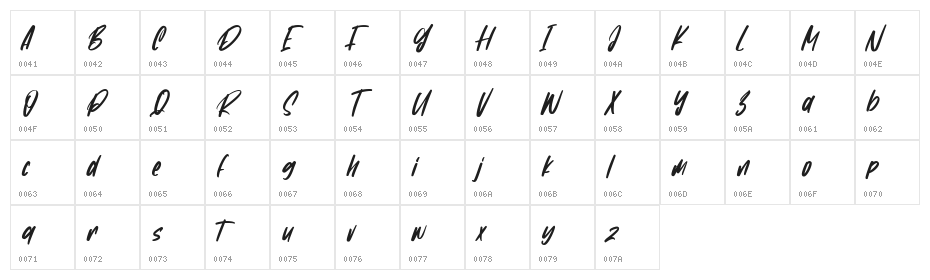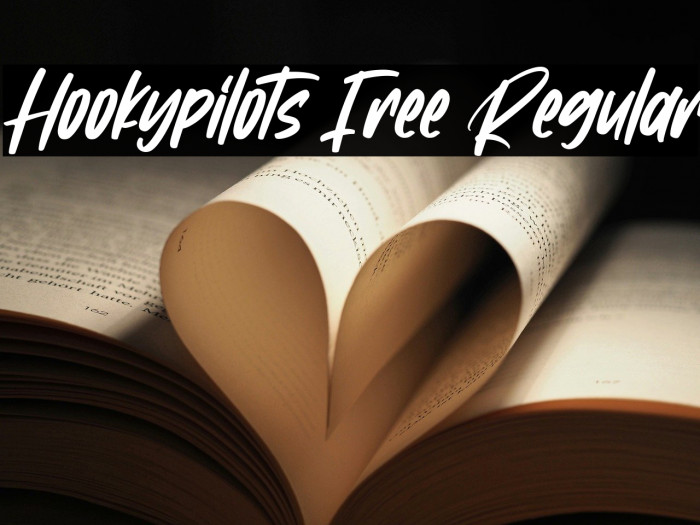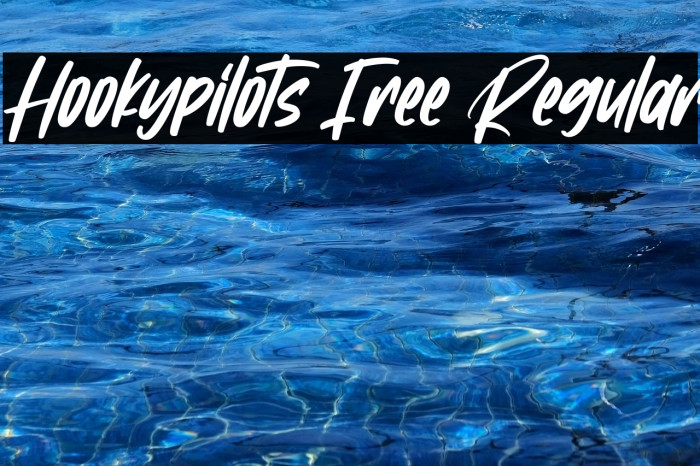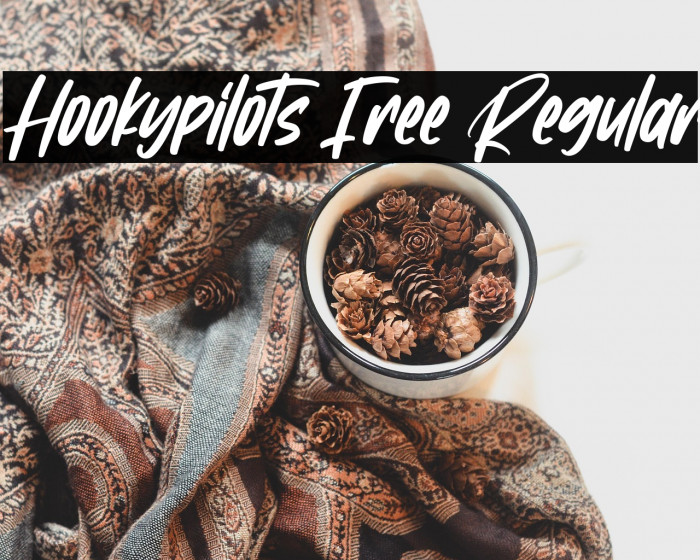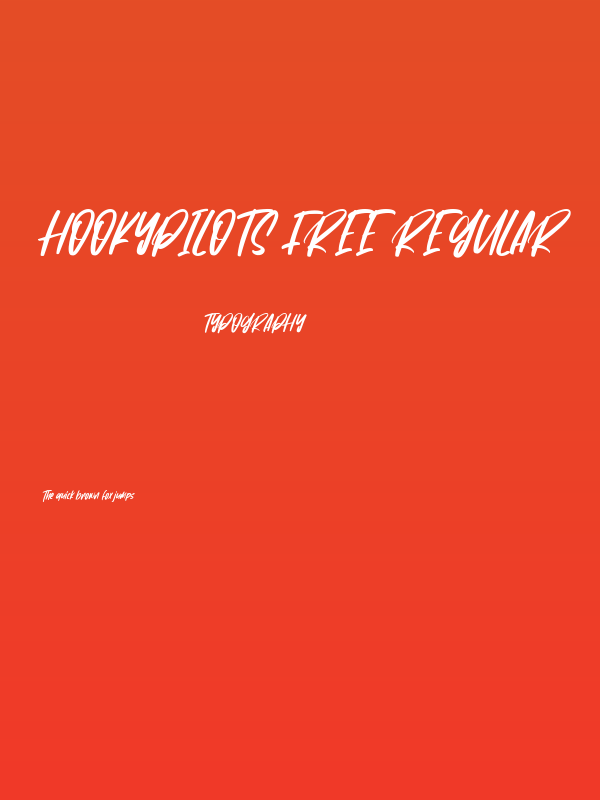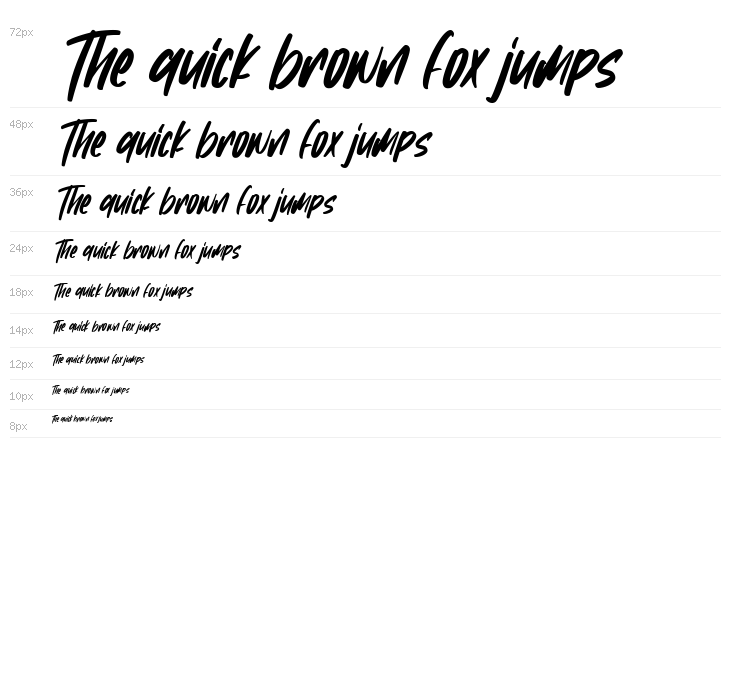
Hookypilots Free Regular Font
Hookypilots Free Regular Description
This font features a bold, energetic script style that mimics the fluidity and spontaneity of handwriting. The letters are connected with smooth, flowing strokes, giving it a dynamic and lively appearance. The uppercase letters are slightly larger and more pronounced, while the lowercase letters maintain a consistent flow. The font has a playful and informal feel, making it suitable for creative and casual designs. The characters are well-spaced, ensuring readability while maintaining the script's natural look.
| Proposed Projects | Ideal for branding, invitations, posters, and social media graphics where a personal and dynamic touch is desired. |